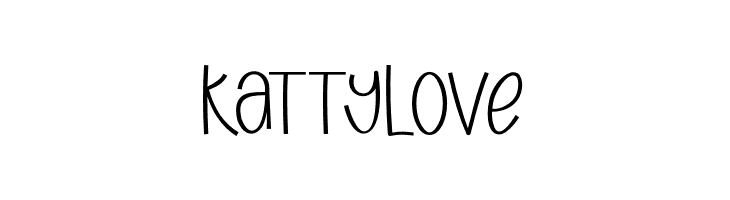
( Fonts by Jacob Fisher - www.pizzadude.dk )
A bold, angular font with a futuristic and industrial design.
( Kylie Morris )
A modern, elongated font with a sleek and elegant design.
( Jonathan S. Harris - www.tattoowoo.com )
A bold, playful font with rounded edges and a hand-drawn style.
A bold, geometric font with sharp edges and a modern aesthetic.
A geometric, angular font with a futuristic and technical aesthetic.
( Fonts by TarmSaft Font Factory - http://www.aska.nu/tarmsaft/ )
A bold, abstract font with fragmented, angular characters.
A whimsical, hand-drawn font with tall, narrow characters and a playful style.
( Fonts by Press Gang Studios - Andeh Pinkard - www.pressgang-studios.com )
A bold, playful, and hand-drawn font with a whimsical style.
( Fonts by Fernando Carvente - serifdechocolate.wordpress.com )
A bold, modern font with strong, uniform strokes and excellent readability.
A bold, handwritten-style font with a playful and energetic appearance.
, with Reserved Font Name: "Knewave". ) A bold, handwritten-style font with a playful and dynamic appearance.
( Fonts by The League of Moveable Type - theleagueofmoveabletype.com )
A playful, outlined font with rounded, slanted characters for a lively look.
( Fonts by The League of Moveable Type - theleagueofmoveabletype.com )
A playful, bold outline font with rounded, dynamic letterforms.
( Fonts by The League of Moveable Type - theleagueofmoveabletype.com )
A bold, playful font with rounded, slanted letterforms.
( Fonts by The League of Moveable Type - theleagueofmoveabletype.com )
A playful, outlined font with a cartoonish, dynamic style.
( Fonts by Darrell Flood )
A playful, hand-drawn font with exaggerated serifs and a whimsical style.
( Fonts by Peter Stanton )
A playful, bold font with quirky, irregular characters and a lively appearance.
( Fonts by Iconian Fonts )
A bold, 3D italic font with star-filled characters and a playful design.
( Fonts by Iconian Fonts )
A bold, 3D decorative font filled with star patterns and thick outlines.
( Fonts by Iconian Fonts )
A bold, star-patterned decorative font with a vintage Americana vibe.
( Fonts by Iconian Fonts )
A bold, italicized font with star-filled characters and outlined design.